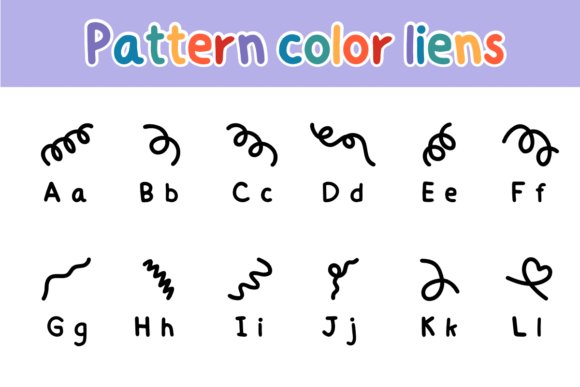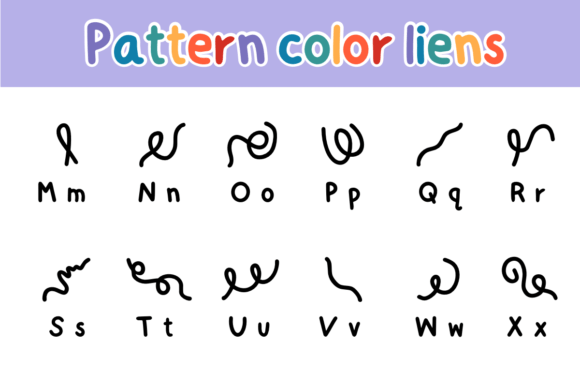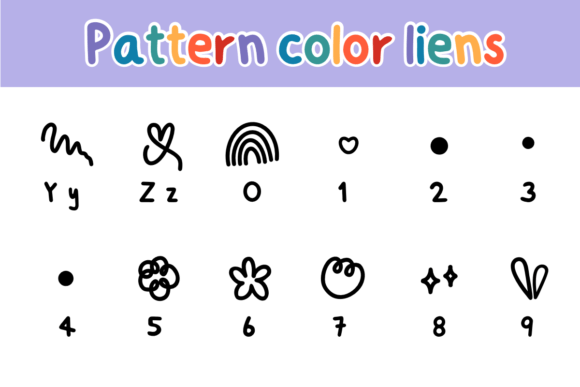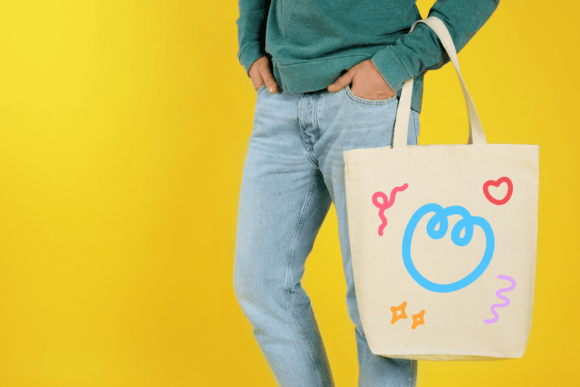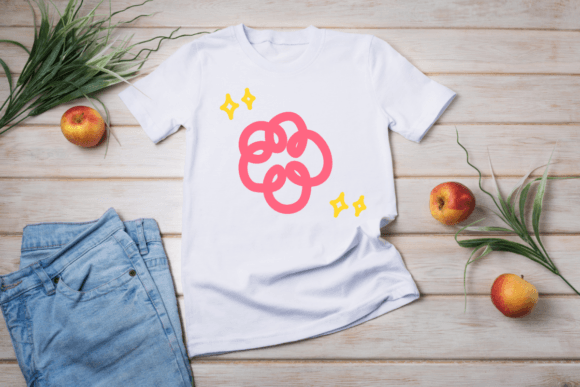
Introduction to Pattern Color Lines Font
Pattern Color Lines is a playful dingbat font featuring curly lines in various colors.
Perfect for adding a fun and vibrant touch to your designs, this font is full of whimsical patterns ready to adorn your projects with ease Whether youโre creating invitations, posters, or any other creative endeavor, Pattern Color Lines adds a delightful flair thatโs sure to capture attention.
Key Features of Pattern Color Lines Font
Why Choose Pattern Color Lines Font?
Pattern Color Lines Font offers exceptional quality and versatility, making it a valuable addition to your design toolkit. Whether you’re creating for personal projects or commercial use, Pattern Color Lines Font delivers professional results.